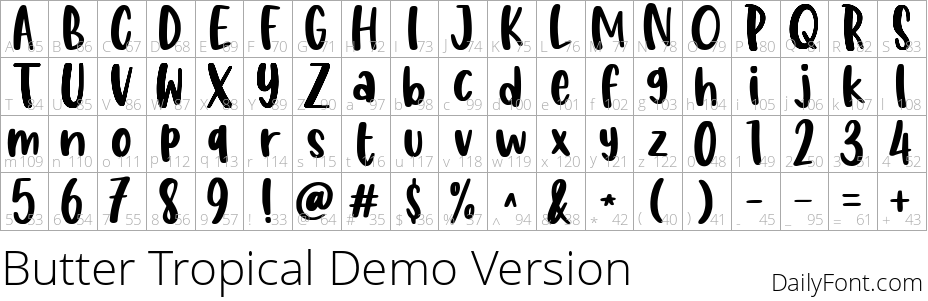
Butter Tropical
Butter Tropical is a delightful handwritten font that adds a touch of warmth and charm to any design project. With its whimsical curves and playful character, this font is perfect for crafting invitations, greeting cards, and social media graphics that need to stand out in a sea of text. The friendly, approachable style of Butter Tropical appeals to audiences of all ages, making it an excellent choice for both personal and professional uses.
Whether you're aiming for a playful vibe or a cozy, inviting atmosphere, Butter Tropical effortlessly enhances your creative materials. Its trendy appeal ensures that it will resonate with design enthusiasts looking for unique and engaging typography. Don't miss out on the opportunity to transform your projects with this soothing and stylish font! Use Butter Tropical to create lasting impressions in your designs, and watch as your audience engages more meaningfully with your work.